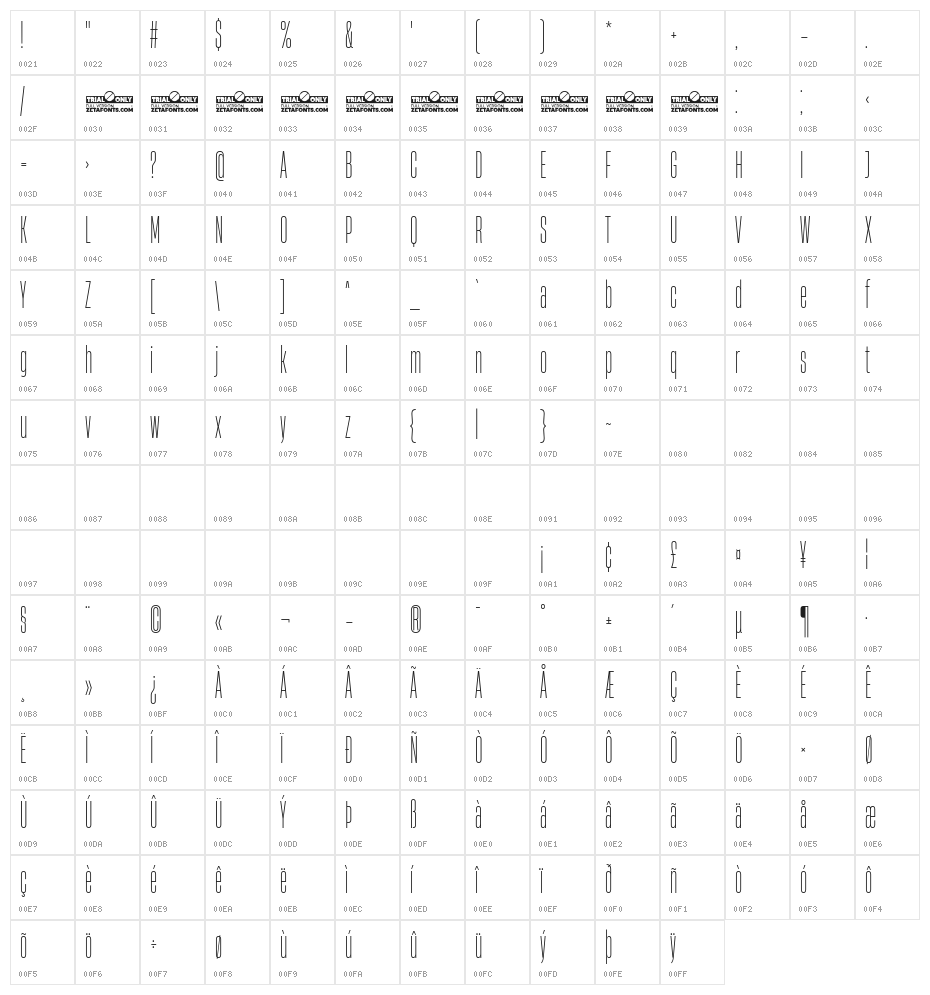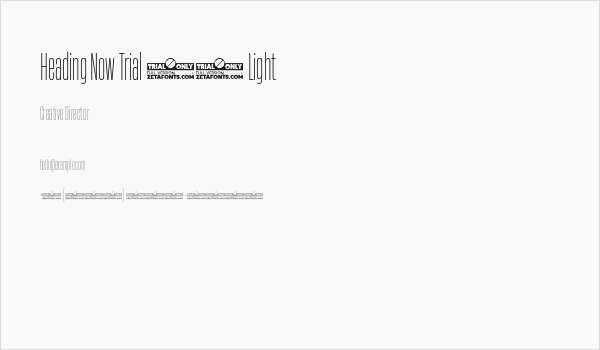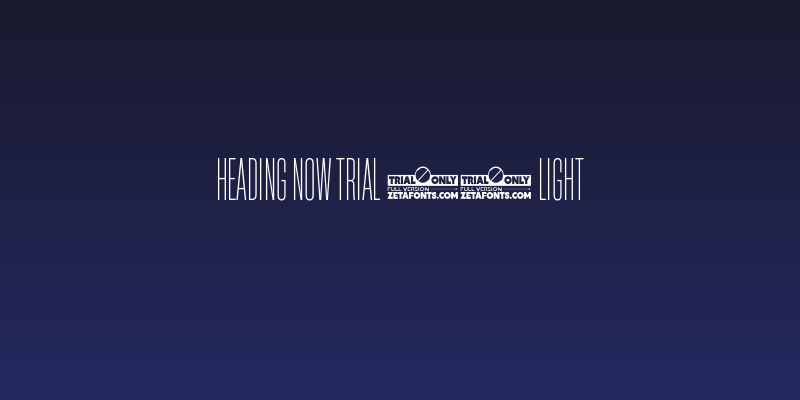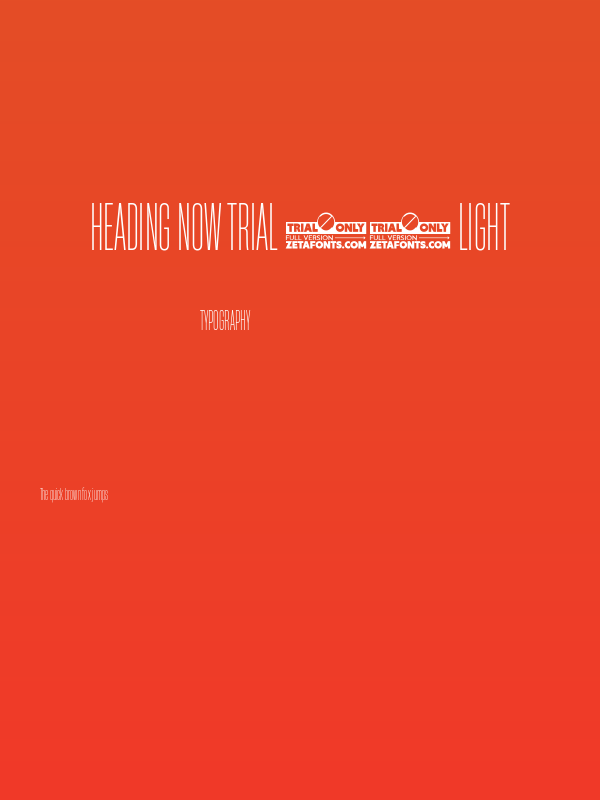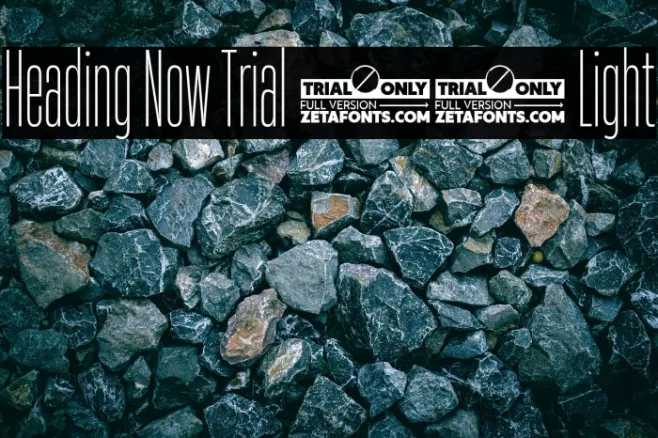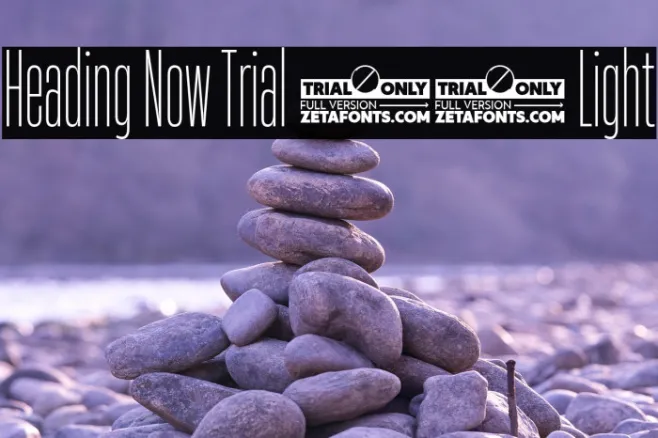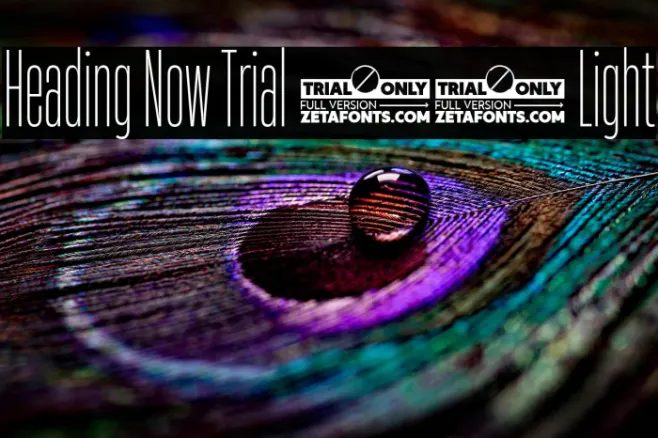
Heading Now Trial 12 Light Font
Heading Now Trial 12 Light Description
This font features a sleek and modern design with tall, narrow characters that convey a sense of elegance and sophistication. The uppercase and lowercase letters maintain a consistent height, contributing to a uniform appearance. The thin strokes and minimal contrast between thick and thin lines give it a light and airy feel. The special characters are designed with the same attention to detail, ensuring they blend seamlessly with the alphabetic characters. This font is ideal for projects that require a contemporary and stylish look.
| Proposed Projects | Ideal for fashion magazines, luxury branding, minimalist posters, and modern web design. |